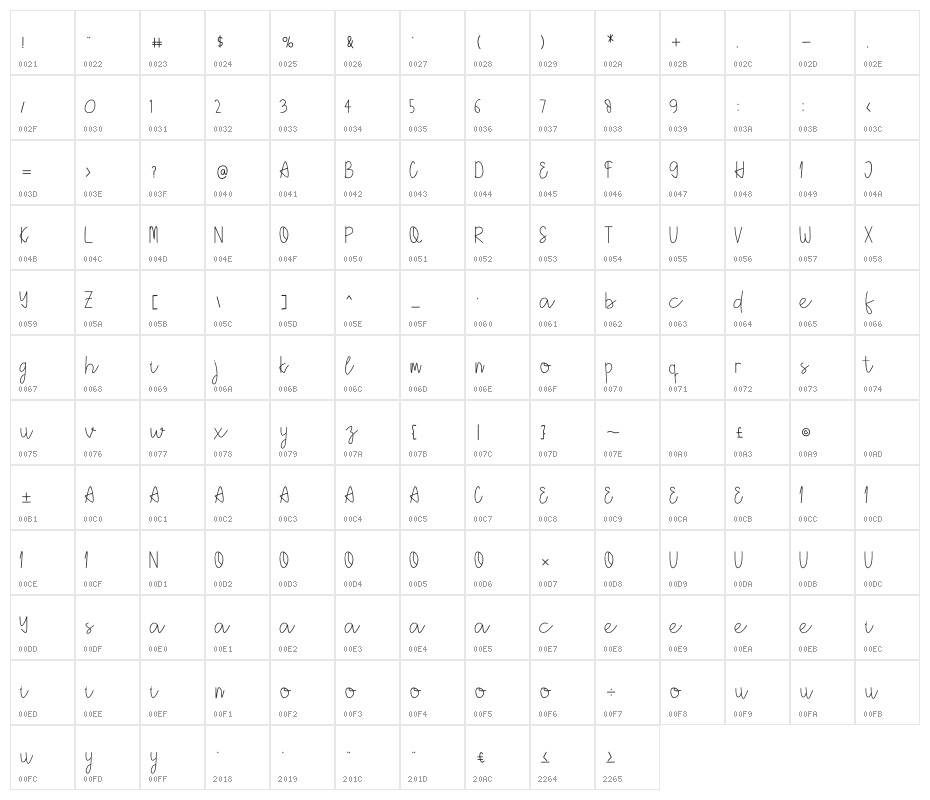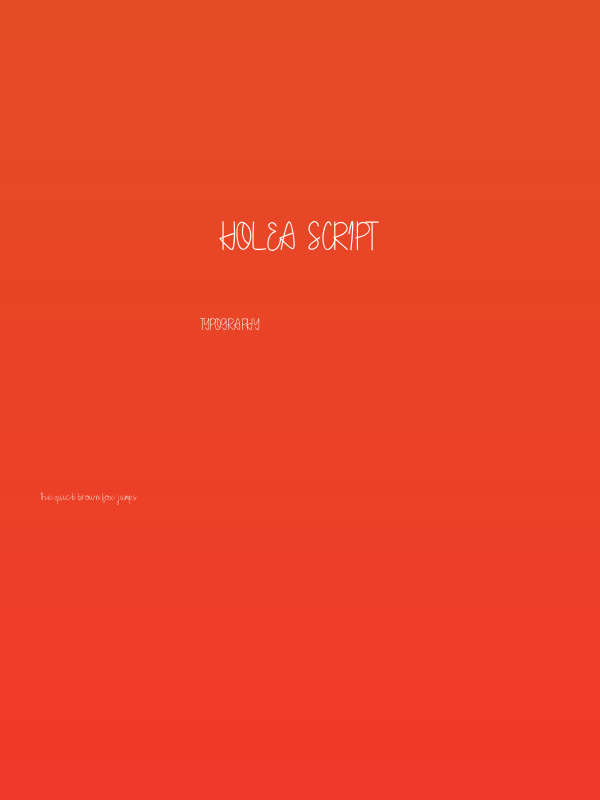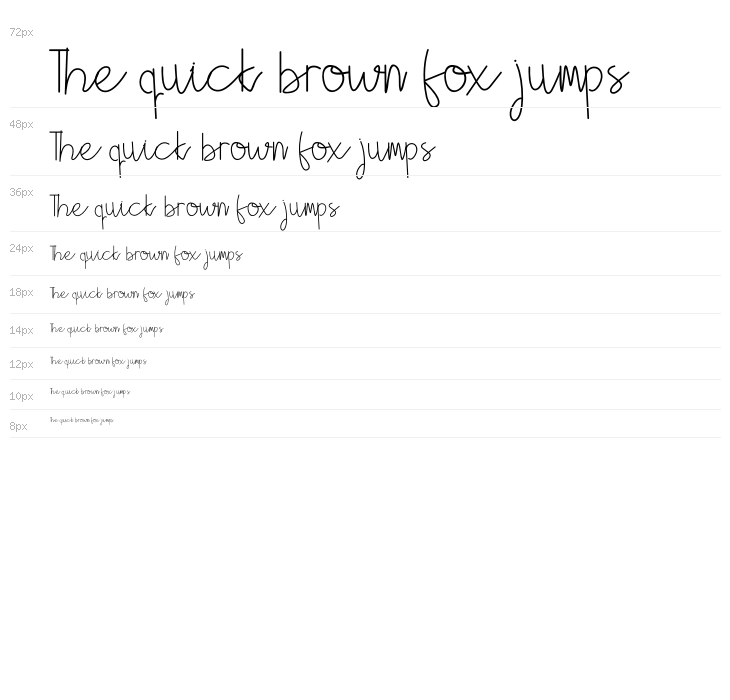
Holea Script Font
Holea Script Description
This font features a playful and whimsical script style, characterized by its flowing, interconnected letters. The uppercase letters are tall and slightly narrow, with a consistent stroke width that gives a uniform appearance. The lowercase letters maintain a similar style, with loops and curves that enhance its casual, handwritten look. Numbers and special characters are designed to match the overall aesthetic, ensuring a cohesive appearance across all text. The font's light weight and airy feel make it suitable for projects that require a touch of elegance and informality.
| Use Case | Logos, Headlines, Invitations |
| Proposed Projects | Ideal for greeting cards, invitations, personal branding, and creative projects that require a casual, handwritten touch. |